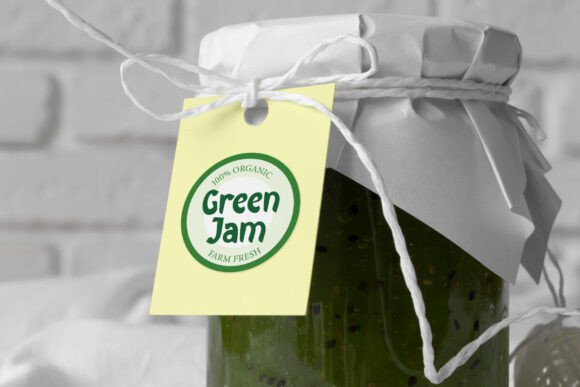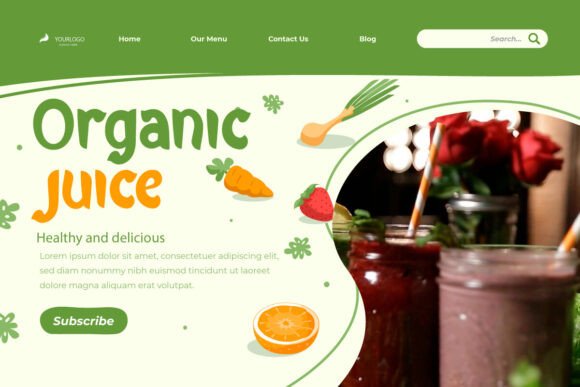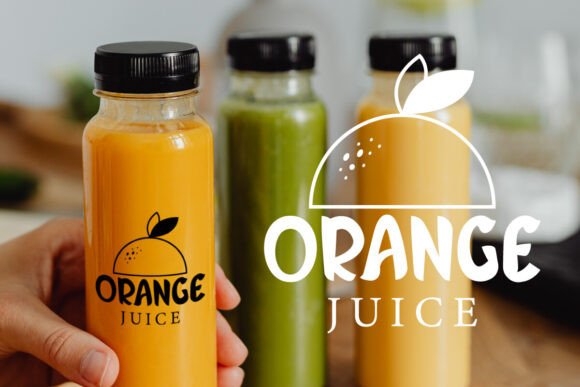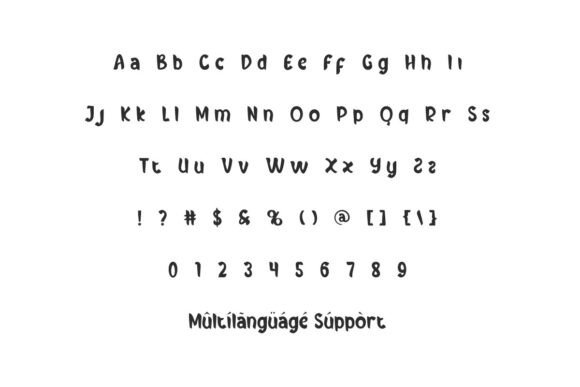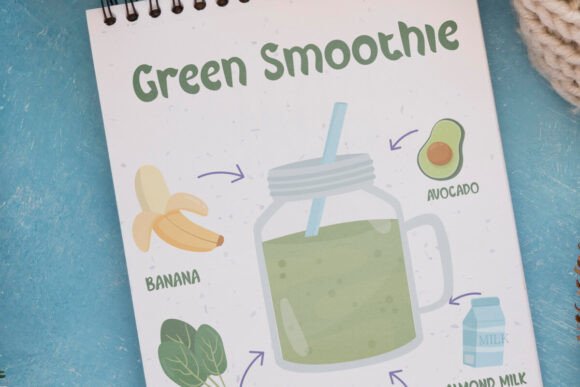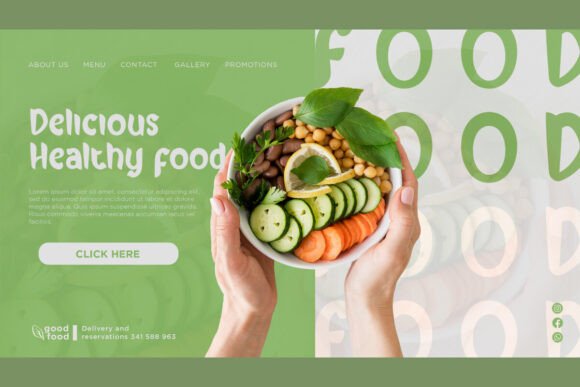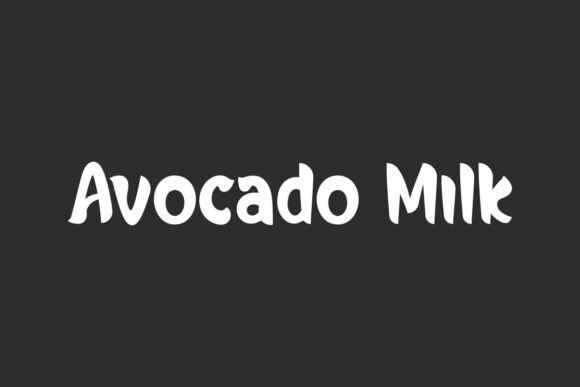
Unleash Your Creativity with the Perfect Typography
Have you ever been stuck in a design rut, pouring over fonts and styles in search of the perfect fit? You know, that moment when you finally stumble upon a font that screams ‘this is it’ and suddenly, your entire project comes to life? For designers, finding the right typography can be the difference between a good design and a great one.
Enter the Avocado Milk Font, a playful and modern display font that adds a fun, distinctive character to any design. Whether you’re working on a brochure, custom design, or product packaging, this font is the perfect addition to bring a lively, modern touch. With its versatility and unique charm, the Avocado Milk Font is a valuable asset for designers looking to elevate their work.
Avocado Milk Font Key Features
- Font Family: Avocado Milk Font is a unique, modern sans-serif font family designed for various digital and print applications.
- Character Set: The font family includes a wide range of characters, including Latin, Cyrillic, and Greek alphabets, as well as punctuation marks and symbols.
- Unique Characteristics: Avocado Milk Font features a distinctive, rounded design with a smooth, organic feel, making it ideal for use in branding, packaging, and editorial design.
Avocado Milk Font Review
Overall, I’m impressed with the Avocado Milk Font. It has a unique, hand-drawn feel that can add a touch of whimsy to any design project ✨. The font is well-suited for titles, headings, and body text, and its versatility makes it a great choice for a variety of applications.
Here are some of the font’s strengths:
- ✨ Unique, hand-drawn feel that sets it apart from more traditional fonts
- ✨ Versatile and can be used for a variety of applications, from titles and headings to body text
- ✨ Includes a range of weights and styles to accommodate different design needs
- ⚠️ The font may not be suitable for very small text sizes, as the hand-drawn feel can become difficult to read at small sizes
- ⚠️ Some users may find the font’s unconventional feel to be distracting or overwhelming
Overall, I think the Avocado Milk Font is a great choice for designers looking to add a touch of personality to their work. While it may not be suitable for every project, its unique feel and versatility make it a valuable addition to any design toolkit.
Avocado Milk Font is a unique and creative font that can be used in various design projects.
- Food and beverage packaging.
- Editorial and publishing design.
Alternatives to Avocado Milk Font
Lato is a clean and modern sans-serif font that works well for both body text and headings. It is a great choice for digital products, websites, and mobile applications. Lato is more versatile than Avocado Milk Font and has a wider range of weights, making it suitable for various design projects.
Comparison to Avocado Milk Font: Lato has a more neutral tone and a larger character set, making it more suitable for long-form content. Avocado Milk Font has a more playful and unique feel, but Lato is more readable and accessible.
Montserrat is a geometric sans-serif font that is perfect for urban and modern designs. It is highly legible and works well for titles, headings, and body text. Montserrat is a great choice for graphic design, branding, and packaging.
Comparison to Avocado Milk Font: Montserrat has a more angular and geometric feel, whereas Avocado Milk Font has a more rounded and playful feel. Montserrat is more suitable for bold and eye-catching designs, while Avocado Milk Font is more suitable for softer and more subtle designs.
Open Sans is a clean and modern sans-serif font that is highly legible and versatile. It is a great choice for digital products, websites, and mobile applications. Open Sans is more readable and accessible than Avocado Milk Font and has a wider range of weights.